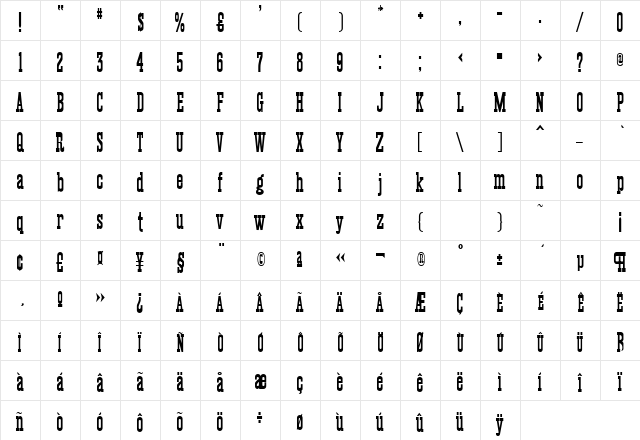
FargoLaser Regular
Design Context for FargoLaser Typeface
FargoLaser offers clean, dependable letterforms without strong stylistic allegiance, making it a practical choice for designers who need flexibility.